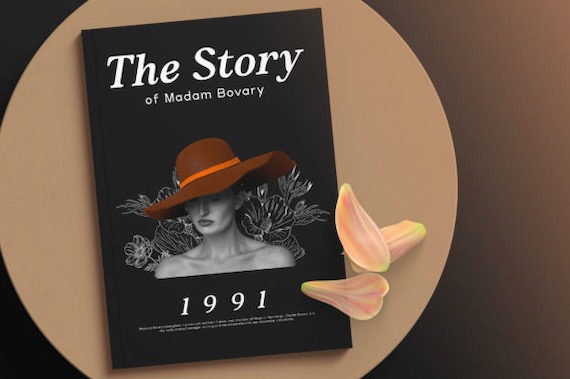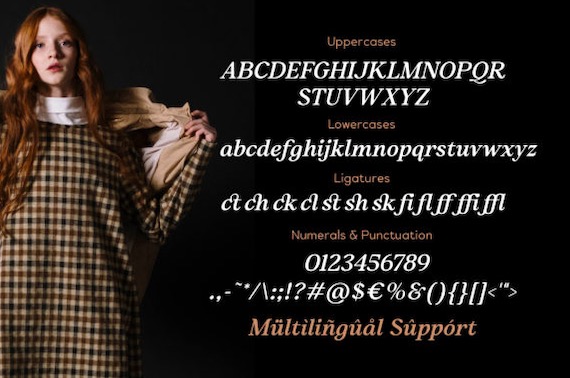
Fresh and Coast is a stylish and classy serif font that was created and shared by Typia Nesia. This versatile font is suitable for a vast of modern designs like book texts, documentation, business reports, business correspondence, magazines, newspapers, posters, advertisements, multimedia, and corporate design.
Fresh and Coast Serif Font